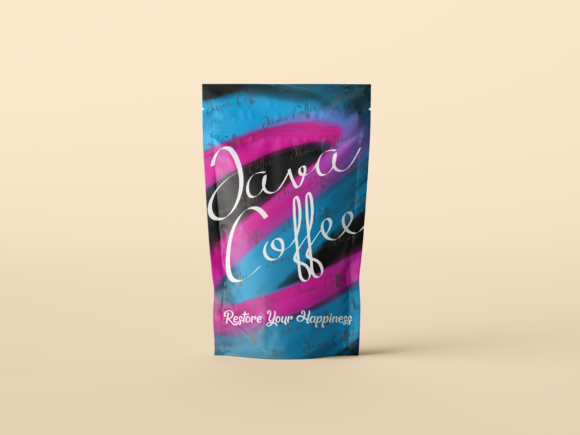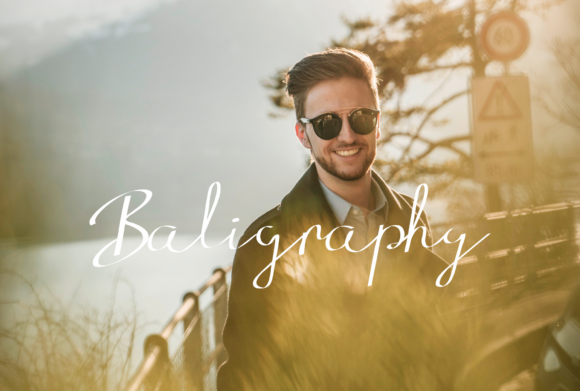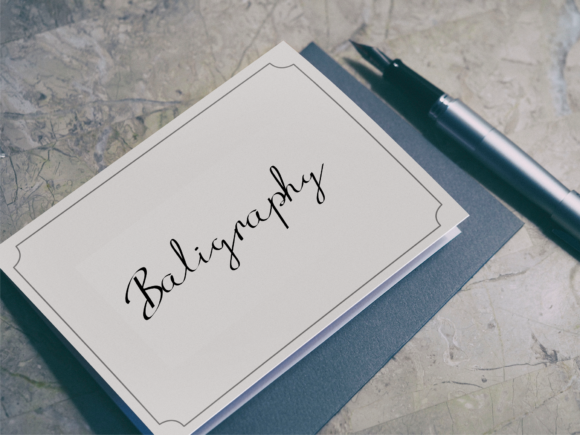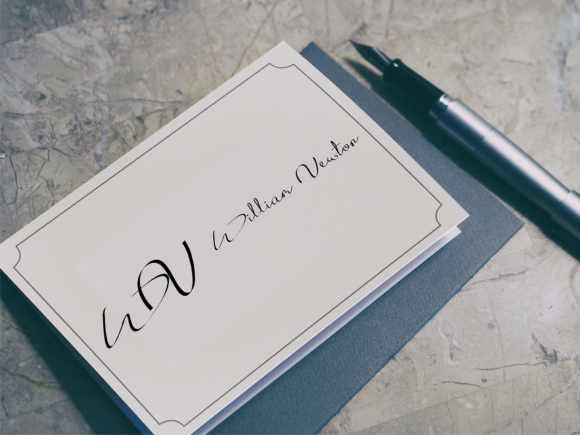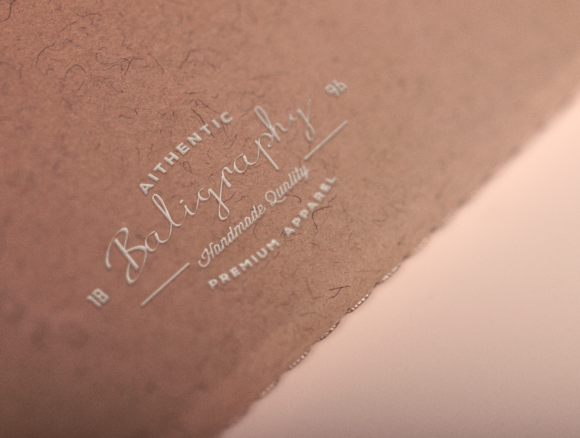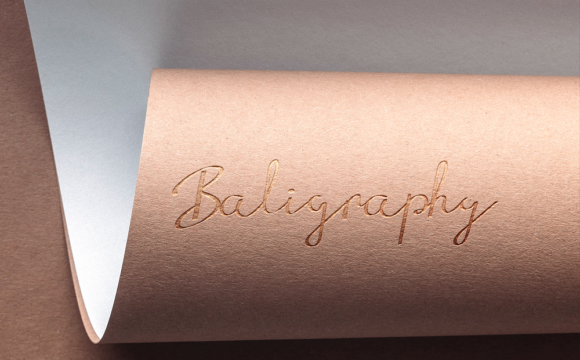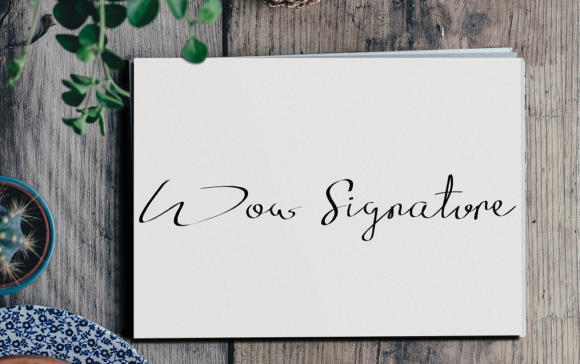
Baligraphy Font
About Baligraphy Font
Baligraphy is a lovely, light and elegant handwritten font. It will effortlessly elevate any creative project with its sophisticated charm.